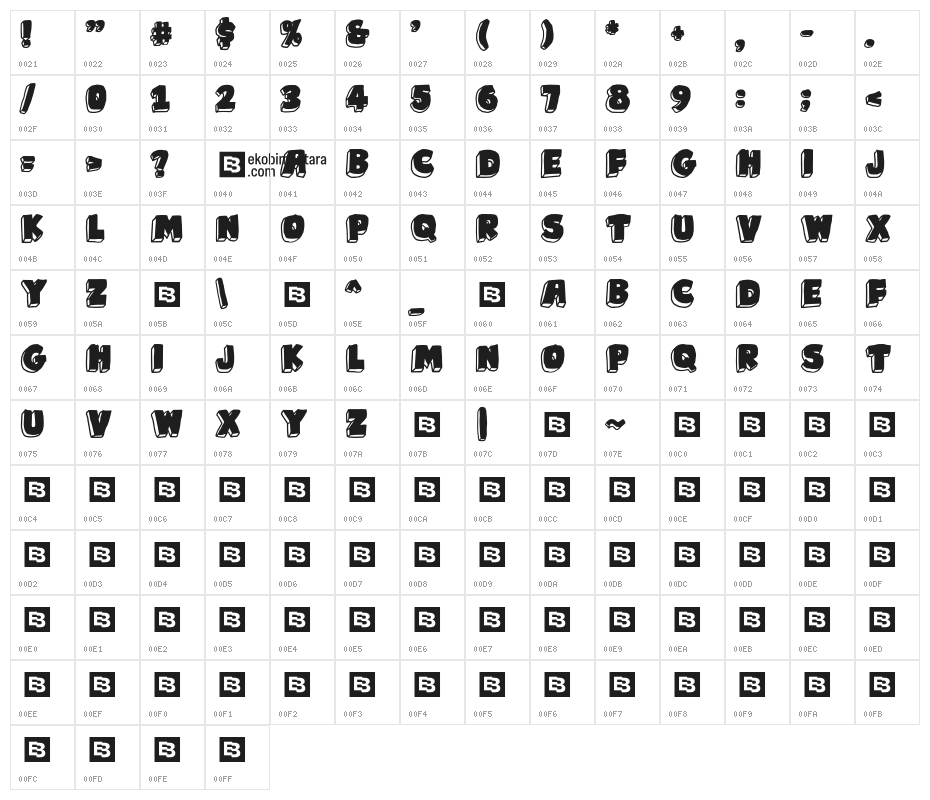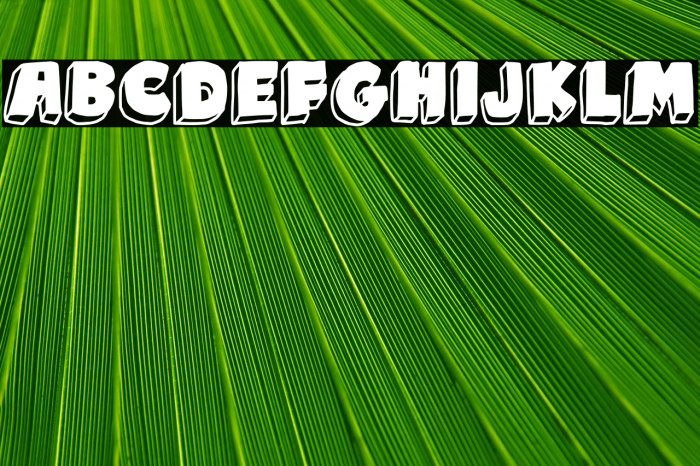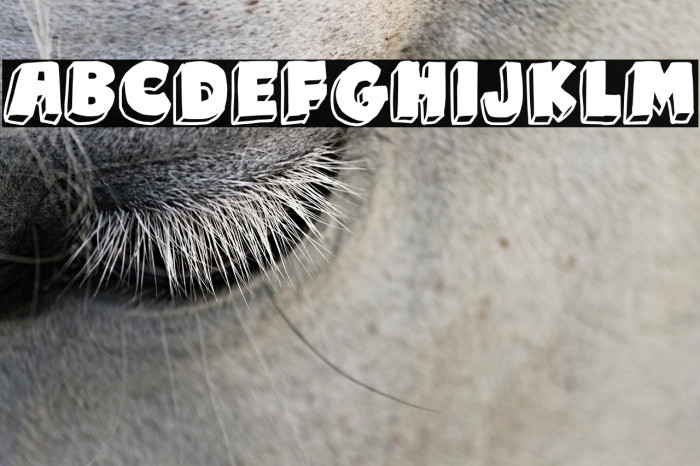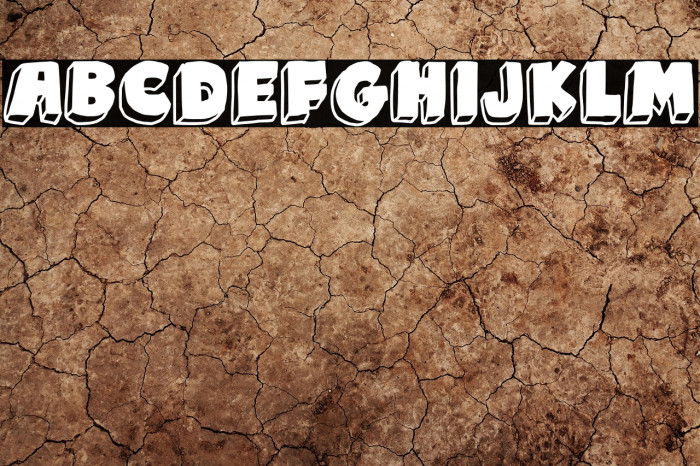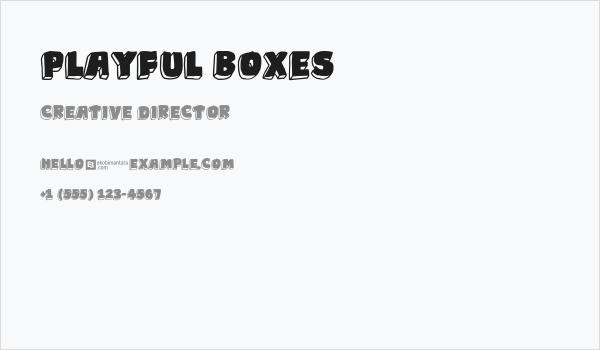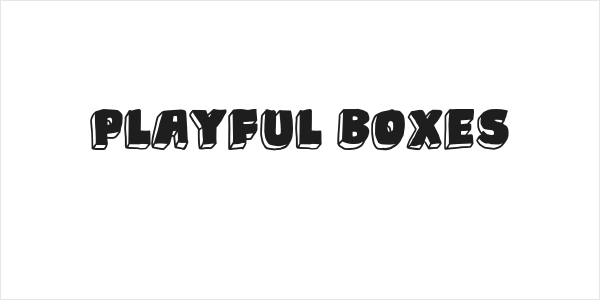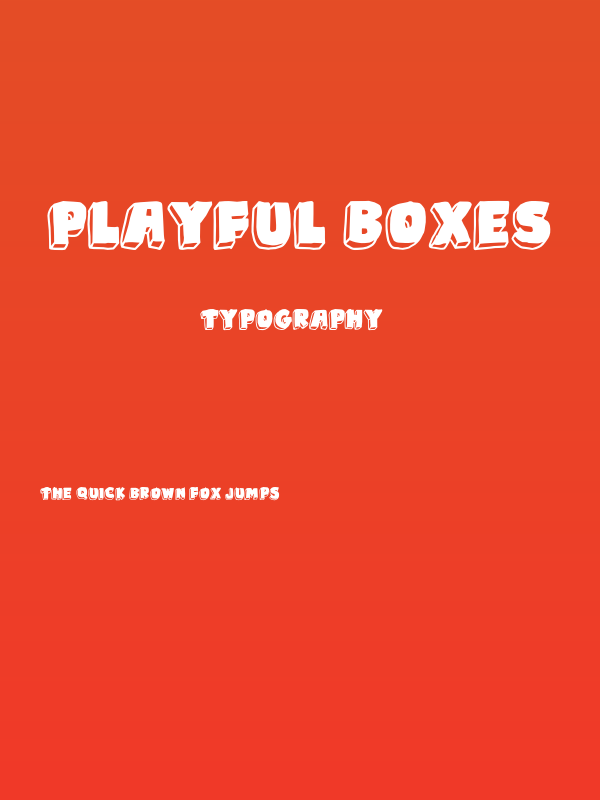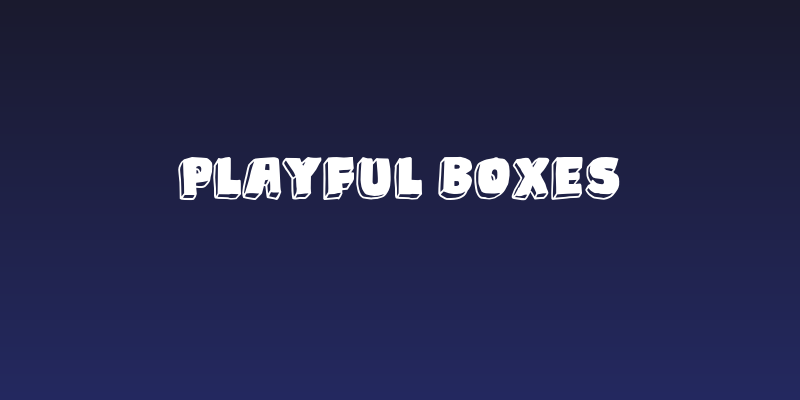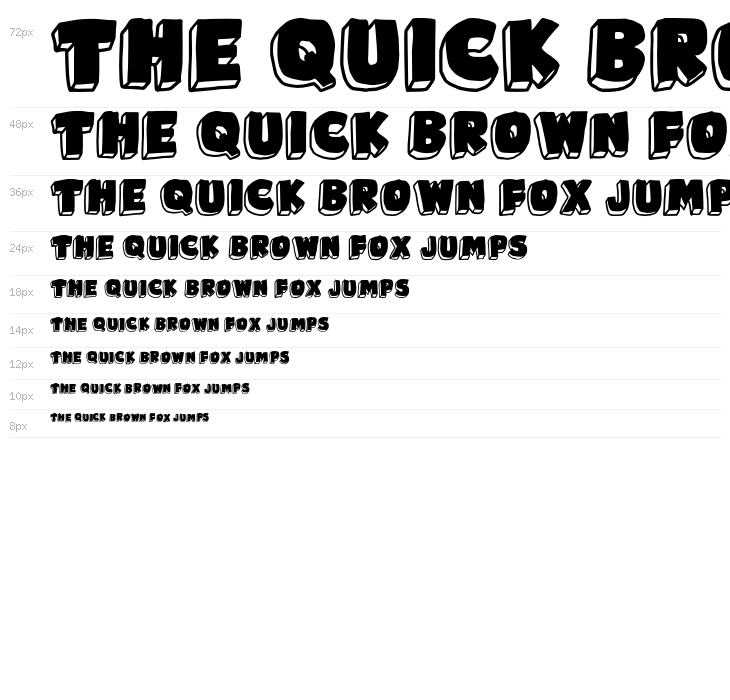
Playful Boxes Font
Playful Boxes Description
This font features a bold, playful design with a 3D effect that gives each character a sense of depth and dimension. The letters are thick and rounded, with a cartoonish style that adds a fun and energetic vibe. The shadowing effect enhances the playful nature, making it stand out in any design. The font includes both uppercase and lowercase letters, numbers, and a variety of special characters, all maintaining the same lively aesthetic. It's perfect for projects that require a touch of whimsy and creativity.
| Overall Style | Playful, Cartoonish |
| Proposed Projects | Ideal for children's books, comic strips, playful branding, and party invitations. |